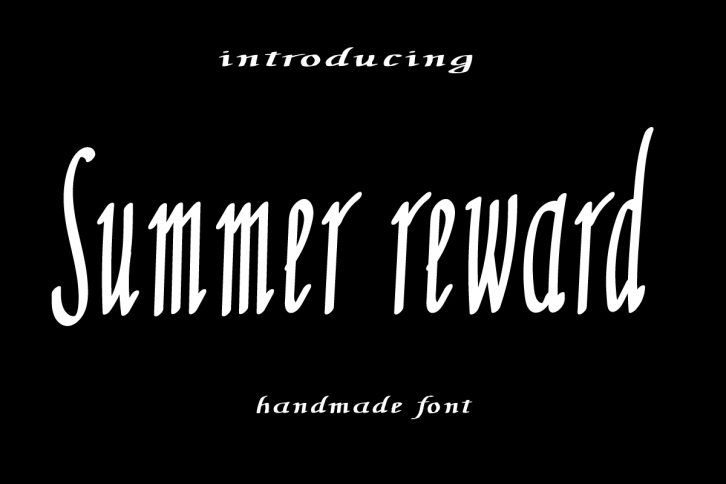
Summer Reward is a simple and adaptable handwritten font. Its natural and unique style makes it incredibly fitting to a large pool of designs. The only limit is your imagination!